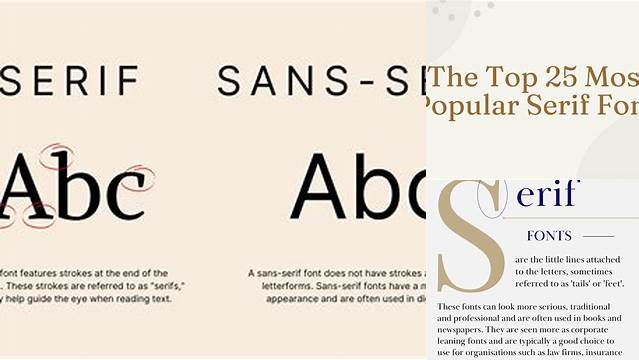
Serif Fonts: Examples And Uses
Let's dive into the world of serif fonts! You know, those fonts that have little strokes or feet at the end of each letter? They're super common and come in a ton of different styles. Whether you're a design newbie or a seasoned pro, understanding serif fonts is key. So, let's explore some examples and how you can use them to make your projects shine.
What Exactly Are Serif Fonts?
Before we jump into specific examples, let's make sure we're all on the same page. Serif fonts are characterized by those extra details—the serifs—at the end of the strokes. These fonts often convey a sense of tradition, authority, and readability, which is why they're so popular in print. Think books, newspapers, and magazines. The presence of serifs helps guide the reader's eye along the lines of text, making long blocks of text easier to digest. Understanding the basics of what defines a serif font is crucial before diving into the numerous variations available. These fonts, with their distinctive serifs, contribute to a classical and refined appearance, making them suitable for a wide range of applications from formal documents to elegant branding materials. The choice of a specific serif font can greatly influence the overall tone and impact of any design project.
Popular Serif Font Examples
Okay, let's get to the fun part – examples! There are tons of popular serif font examples out there, each with its own unique vibe. Times New Roman is a classic that you've definitely seen before. Then there's Garamond, known for its elegance and readability. And who could forget Century Schoolbook, often used in textbooks? Each of these fonts brings something different to the table, so choosing the right one can really make your design pop. For example, Times New Roman is often seen as a safe and reliable choice for academic papers and formal documents. Garamond, on the other hand, lends a more sophisticated and refined touch to projects, making it ideal for high-end publications and branding. Century Schoolbook is specifically designed for clarity, which makes it perfect for educational materials. Exploring these popular options allows designers to appreciate the subtle nuances that distinguish each serif font.
Times New Roman: The Ubiquitous Serif
Ah, Times New Roman! You either love it or hate it, but you can't deny its impact. This ubiquitous serif, designed in 1931, was originally created for The Times newspaper. Its compact design and high readability made it a hit, and it quickly became a standard for print. While it's sometimes seen as a bit overused these days, Times New Roman is still a solid choice when you need a reliable and readable font. Its formal appearance makes it suitable for academic papers, legal documents, and professional reports. However, some designers argue that its widespread use has made it feel generic and uninspired. Despite this criticism, Times New Roman remains a staple in many word processing programs and continues to be a go-to option for those seeking a straightforward and functional serif font. Its historical significance and lasting presence in the world of typography are undeniable.
Garamond: Elegance and Readability
Garamond is where elegance meets readability. This elegant serif font family is known for its classic and refined appearance, making it a favorite for books, magazines, and corporate branding. Its delicate serifs and balanced proportions give it a sophisticated feel that can elevate any design. Garamond is particularly effective in settings where a touch of class is desired, such as invitations, fine art prints, and high-end publications. The font's versatility allows it to be used in both body text and headlines, providing a consistent and polished look. Designers appreciate Garamond for its timeless appeal and ability to convey a sense of tradition and quality. Its slightly condensed letterforms also make it efficient for use in layouts where space is limited. Overall, Garamond is an excellent choice for projects that require a blend of aesthetic beauty and functional readability.
Century Schoolbook: Clarity for Education
If you're looking for a font that's all about clarity, Century Schoolbook is your go-to. This clear serif was designed specifically for textbooks and educational materials, so it's super easy to read, even for young eyes. Its wide letterforms and distinct serifs make each character easily distinguishable, reducing the risk of confusion. Century Schoolbook is also a great choice for anyone with dyslexia or other reading difficulties. The font's straightforward design and enhanced readability ensure that the focus remains on the content, rather than the typography. This makes it an ideal option for educational publishers, teachers, and anyone who wants to present information in the most accessible way possible. Its design emphasizes legibility, making it a reliable choice for extended reading and complex subjects.
Serif Fonts in Print Media
Serif fonts in print media are like peanut butter and jelly – they just go together. Because serifs help guide the eye, these fonts are perfect for long blocks of text. That's why you see them in books, newspapers, and magazines all the time. Using a serif font in print can make your content more readable and professional-looking. Think about your favorite novel; chances are, it's set in a serif font. The consistent and familiar appearance of serifs creates a comfortable reading experience, reducing eye strain and improving comprehension. In newspapers, serif fonts provide clarity and efficiency in dense columns of text. Magazines often use a combination of serif and sans-serif fonts to create visual interest and hierarchy, but serif fonts usually dominate the body text. The choice of a specific serif font can also reflect the tone and style of the publication, from traditional and formal to modern and sophisticated.
Serif Fonts in Web Design
Now, let's talk about serif fonts in web design. While sans-serif fonts have been more popular online due to screen readability, serifs are making a comeback. With higher resolution screens, serifs are now easier to read online, allowing designers to bring a touch of elegance to their websites. Using a serif font for headings or body text can add a sense of sophistication and credibility to your site. However, it’s important to choose a serif font that's optimized for web use, ensuring it looks crisp and clear on different devices. Experimenting with different font pairings, such as a serif font for headings and a sans-serif font for body text, can create a visually appealing and balanced design. Additionally, considering the website's overall theme and target audience is crucial in selecting the appropriate serif font. The font should complement the content and enhance the user experience, rather than detract from it.
How to Choose the Right Serif Font
Choosing the right font can feel like a daunting task, but it doesn't have to be! First, think about the message you want to convey. Are you going for a classic, authoritative feel, or something more modern and elegant? Next, consider the context. Where will the font be used? A font that looks great in print might not work as well on a website. Finally, don't be afraid to experiment! Try out different fonts and see what looks best. Pay attention to details like letter spacing and kerning, as these can significantly impact readability. It’s also helpful to research the history and purpose of different serif fonts to understand their intended use and potential impact. Consulting with experienced designers or using font pairing tools can provide valuable insights and guidance in selecting the perfect serif font for your project.
The Psychology of Serif Fonts
Fonts aren't just about looks; they also have a psychological impact. The psychology of serif fonts often conveys feelings of tradition, authority, and trustworthiness. This is why you often see them used by established brands and institutions. If you want to create a sense of reliability and credibility, a serif font might be the way to go. Think about legal documents, academic papers, and financial reports – they almost always use serif fonts. The structured and formal appearance of serifs can instill confidence and reassure readers of the content’s validity. In contrast, sans-serif fonts tend to convey a more modern and approachable feel, making them suitable for tech companies and contemporary brands. Understanding the psychological connotations of different font styles can help designers make informed decisions that align with the desired message and brand identity. By carefully selecting fonts, designers can subtly influence the audience's perception and create a stronger emotional connection.
Creating a Visual Hierarchy with Serif Fonts
Creating a visual hierarchy is crucial for good design, and creating a visual hierarchy with serif fonts is a great way to guide the reader's eye. Use different font sizes, weights, and styles to create contrast and emphasize important information. For example, use a bold serif font for headings and a lighter serif font for body text. This helps readers quickly scan the content and understand the key points. A well-defined visual hierarchy makes your designs more engaging and effective. So, experiment with different font combinations to create a clear and compelling visual hierarchy.